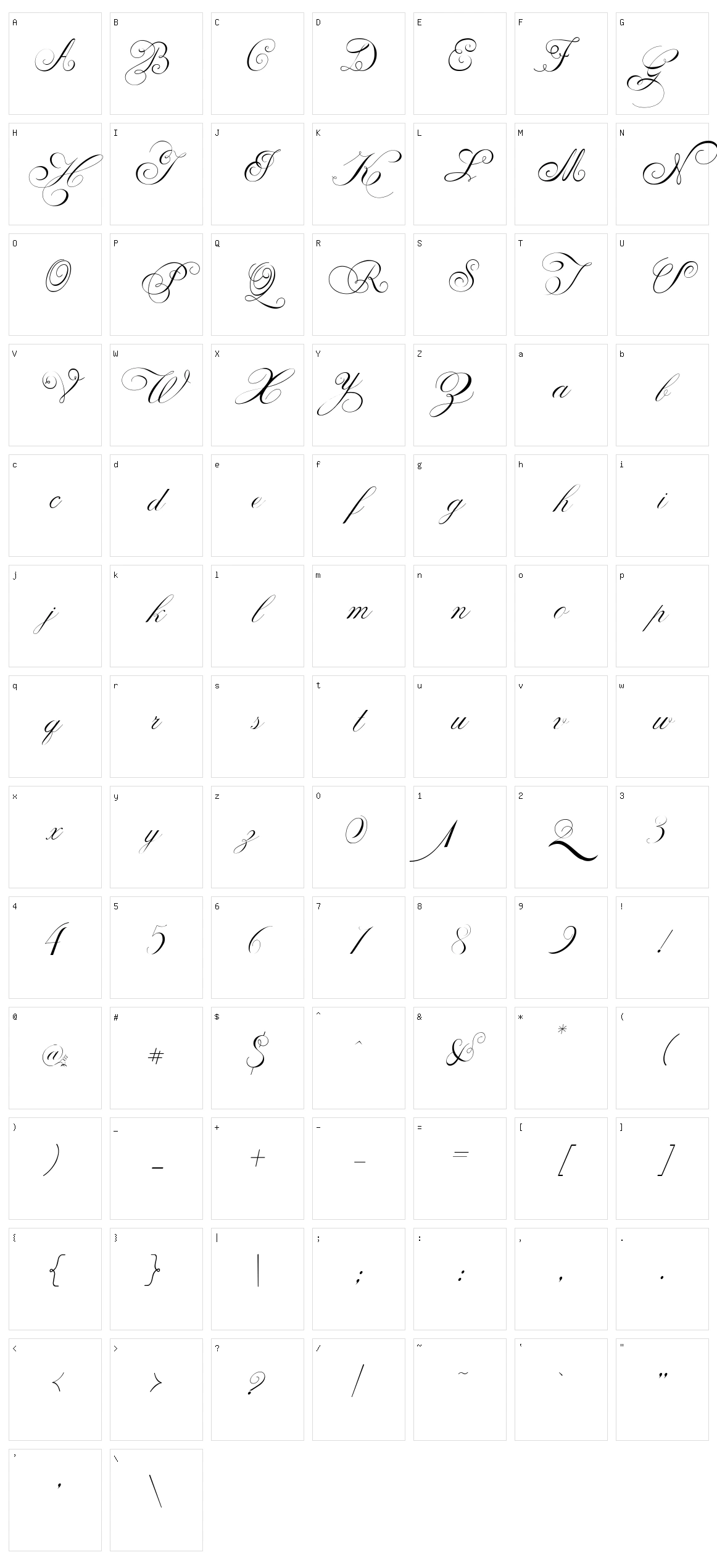
Penabico Limited Free Version, by Intellecta Design
The original font has over 2000 letters, besides other founr fonts in the family and goodies (like an eps set). To purchase the complete Penabico family and commercial licences, please, visit:
In 1733, London master letterer George Bickham collected penmanship samples from 26 of his contemporaries and published The Universal Penman. Thanks to Bickhams monumental compilation, eighteenth-century English Roundhand became one of the most popular styles of formal writing; in recent years it inspired several digital typefaces. Penabico is Intellecta Designs free interpretation of the genre. It comes with loads of stylistic alternates, ligatures, ornaments and fleurons, as well as abbreviations and intricate, ready-made calligraphic words. While the enhanced OpenType version contains all these goodies and more, some of the ornaments, catch words and other glyphs are accommodated in supplementary fonts for easier access in non-OpenType-savvy programs.